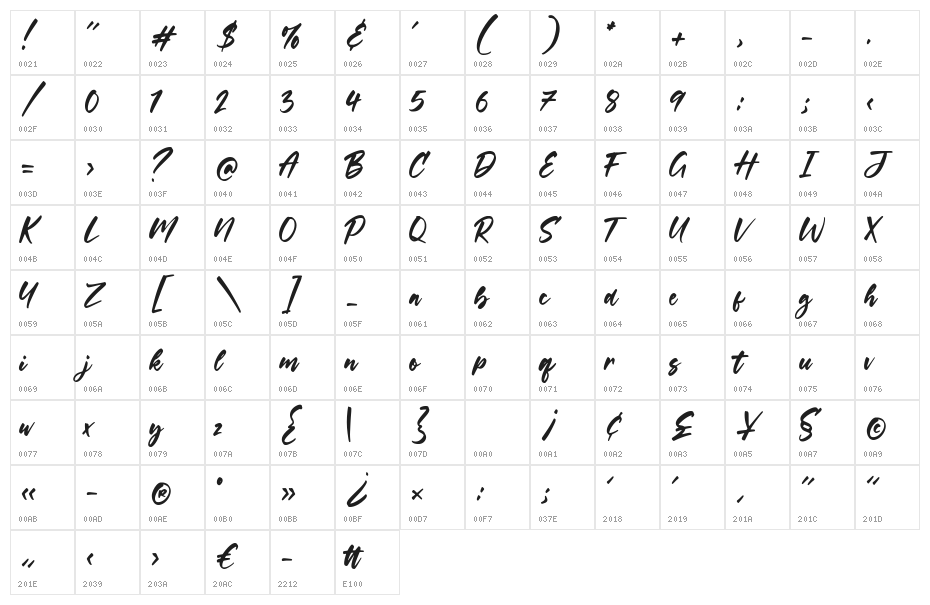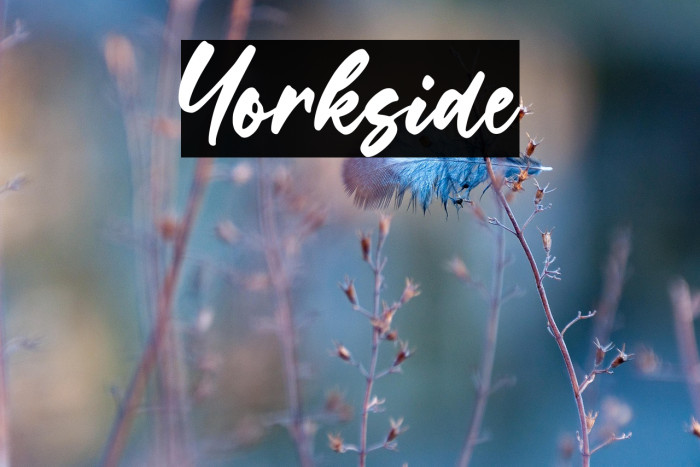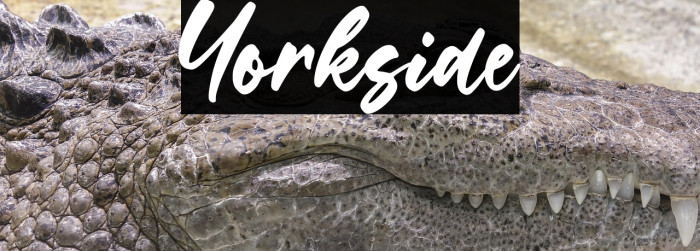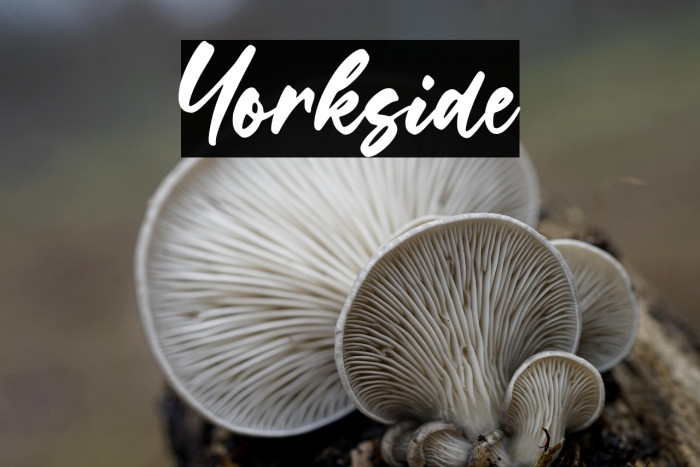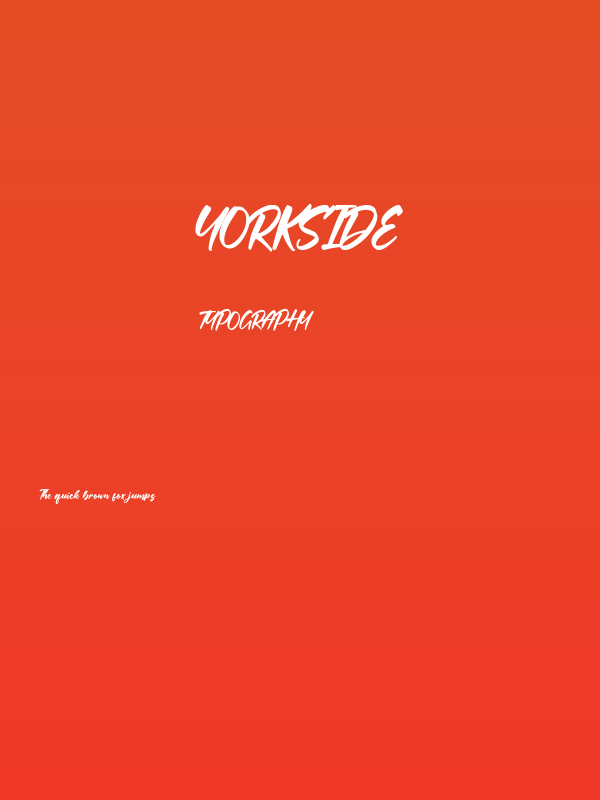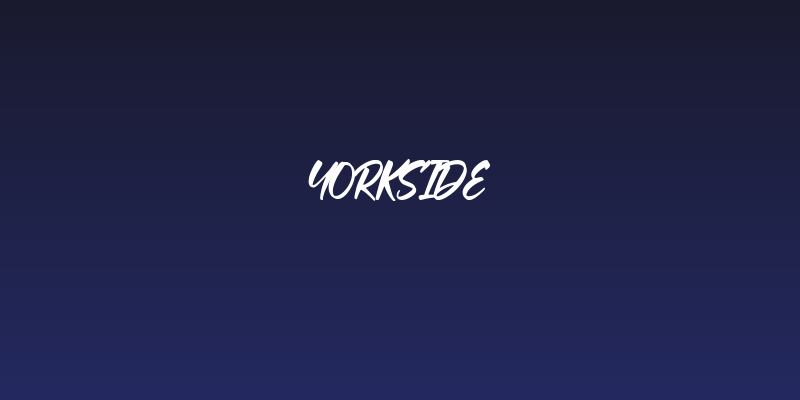
Yorkside Font
Yorkside Description
This font exudes a dynamic and energetic feel with its bold, flowing script style. The characters are crafted with a sense of movement, featuring smooth, sweeping curves and a slightly slanted orientation that adds to its lively appearance. The uppercase letters are particularly striking, with their tall, elegant forms, while the lowercase letters maintain a consistent rhythm and flow. The numerals and special characters are equally expressive, maintaining the overall aesthetic of the font. This typeface is perfect for projects that require a personal, handwritten touch, conveying a sense of creativity and spontaneity.
| Use Case | Logos, Headlines, Invitations |
| Proposed Projects | Ideal for branding, invitations, greeting cards, and creative projects that require a personal touch. |